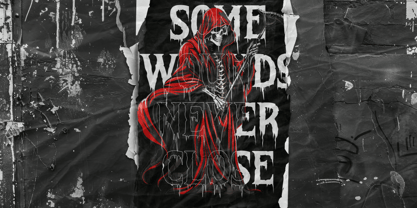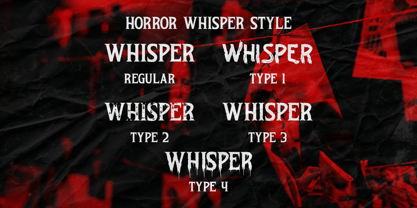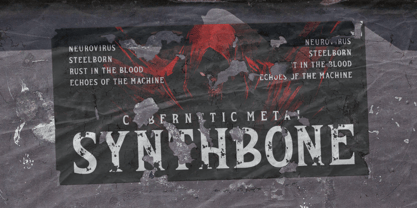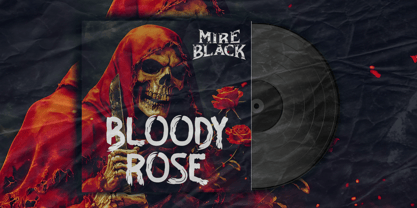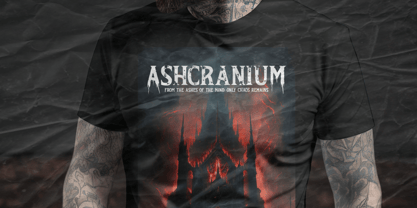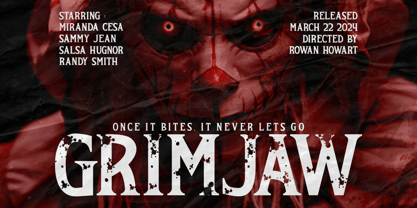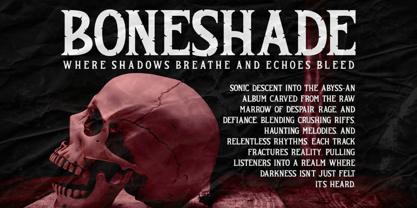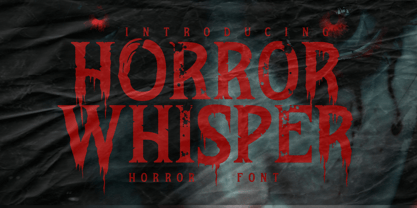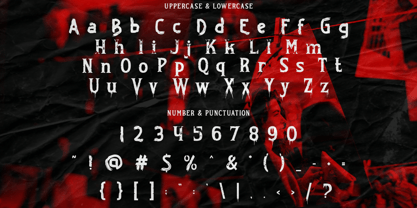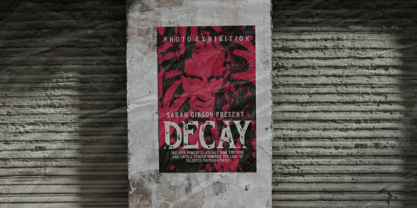
Horror Whisper
by Shanaf
The Horror Whisper Font Family was designed by Yesie Erma Yunita and published by Shanaf. Horror Whisper contains 5 styles and family package options.
Horror Whisper is a blood-curdling horror display font designed to evoke terror at first glance. The font features sharp, spiked letterforms with elongated, melting drips—reminiscent of blood oozing from the page. Bold uppercase characters dominate the design, making it perfect for high-impact horror movie posters, spine-chilling titles, and atmospheric branding. It also incorporates distressed textures and randomized corrosion on each glyph to simulate decay and gothic erosion, giving your message a haunting and cinematic presence. The font’s letter spacing and weight are optimized for readability, even when used in gritty or dark environments.
This horror typeface is ideal for film titles, poster headlines, or any creative project demanding a terrifying and intense atmosphere. Whether you're designing a Halloween event flyer, a metal band logo, or eerie packaging, Horror Whisper amplifies the fear factor. Each character has been crafted with narrative intensity in mind—balancing legibility with visual aggression. Compatible with modern design software, this font delivers stylistic cohesion across both digital and print media. Use it for logos, branding, stickers, covers, and anything that thrives in the shadows.